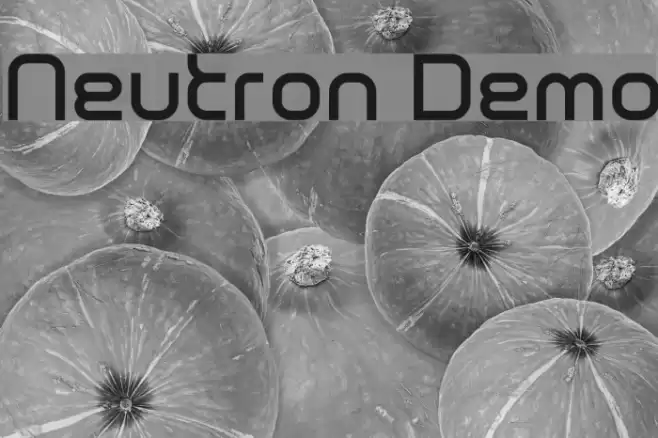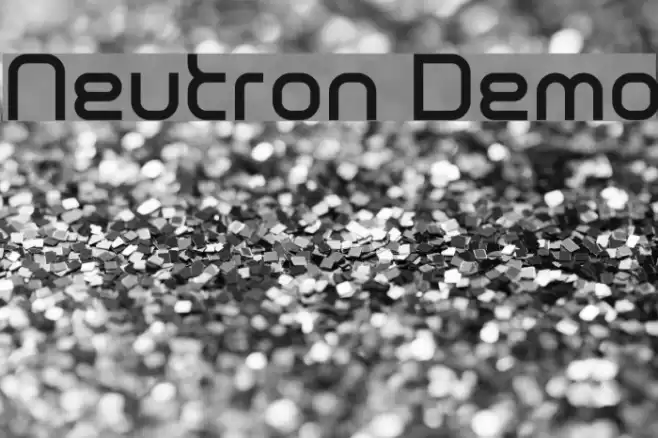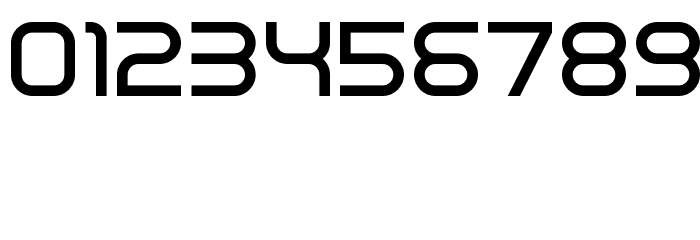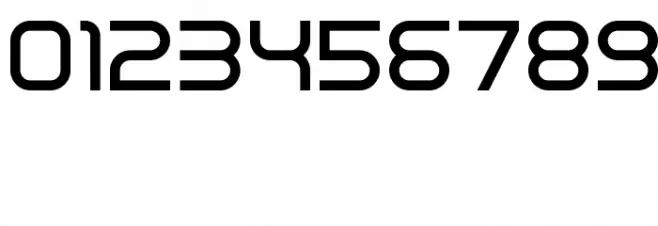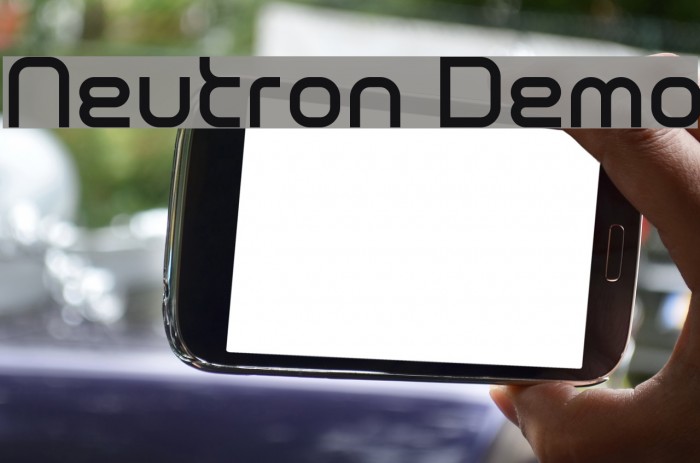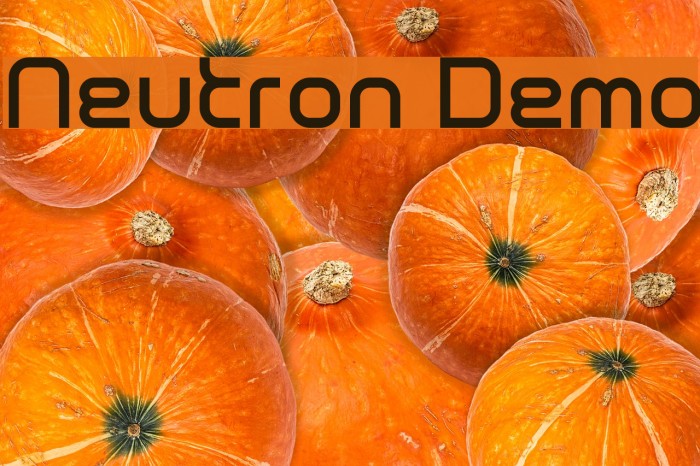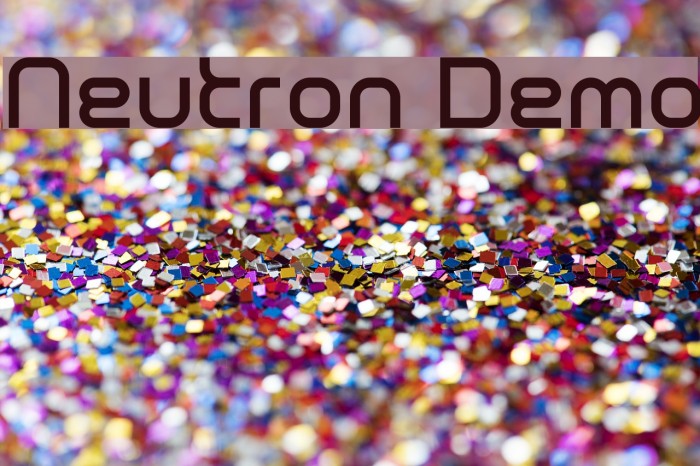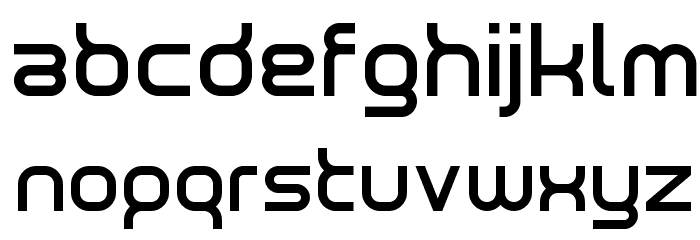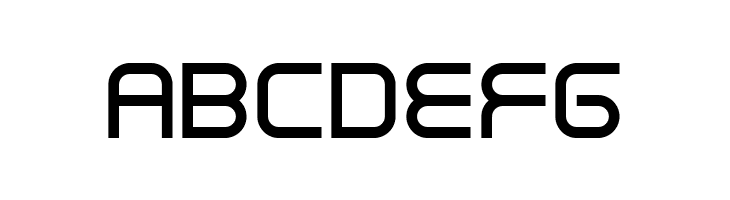
Neutron Demo Font
Neutron Demo Description
This font features a modern, geometric design with clean lines and rounded edges, creating a futuristic and sleek appearance. The uppercase letters are uniform in height and width, while the lowercase letters maintain a consistent style with slightly more variation in form. The numerals are distinct and align well with the overall aesthetic, ensuring readability and visual appeal. The special characters are designed to complement the alphabet, maintaining the same geometric and rounded style. This font is well-suited for projects that require a contemporary and professional look.
A modern, geometric font with rounded edges and a sleek, futuristic style from Futuristic fonts.
- Proposed Projects: Ideal for technology branding, modern web design, and futuristic product packaging.
- Use Case: Headlines, Logos, Branding